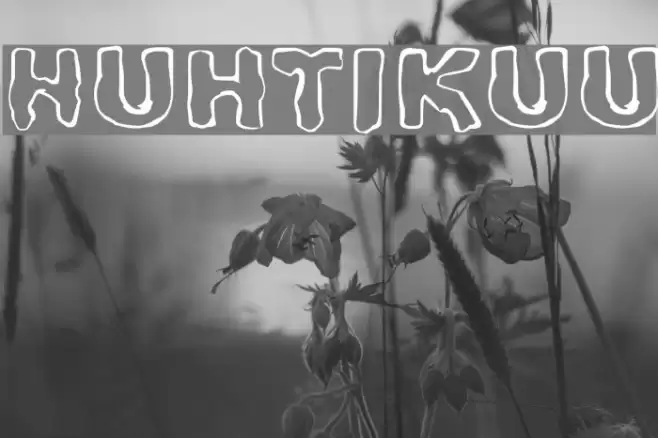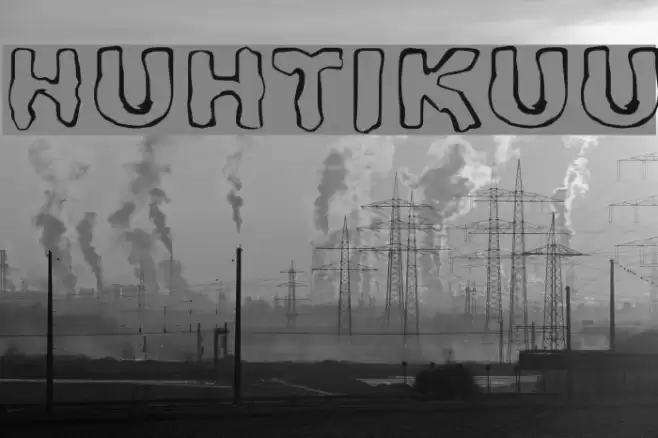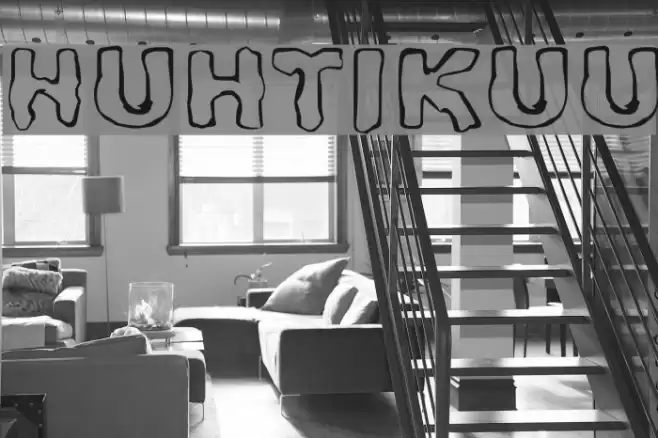
Huhtikuu Font
Huhtikuu Description
This playful and bold font features a unique, hand-drawn style with a thick outline that gives it a cartoonish and informal appearance. Each character is distinct with a slightly irregular shape, adding to its whimsical charm. The uppercase and lowercase letters maintain a consistent style, with rounded edges and a sense of movement. The numerals and special characters follow the same design principles, ensuring a cohesive look across all elements. This font's distinctive outline and playful nature make it stand out, perfect for projects that require a fun and engaging visual element.
A playful, hand-drawn font with bold outlines and a cartoonish style from Uncategorized fonts.
- Proposed Projects: Ideal for children's books, comic strips, playful branding, and creative posters.
- Overall Style: Playful, Cartoonish